Trending Fonts in Brand Packaging and Labels in 2024
Summary:
As we approach 2024, the typographical landscape is poised for evolution, heralding a new era of font trends that promise to redefine brand packaging and label designs. From the elegance of serif to the boldness of experimental styles, these fonts are set to play a pivotal role in shaping consumer perceptions and establishing a distinct brand identity. In this article, we explore the significance of these forthcoming trends and offer insights into how they can be effectively integrated into labels and packaging to elevate brand appeal. Discover how Labelprint24 can assist your brand in navigating these cutting-edge font trends.
Key Takeaways
| Aspect | Detail |
| Importance of Font Trends | Fonts significantly affect brand perception and identity. |
| Top Fonts for 2024 | Includes Beverly Drive, Lowdrag, Argesta, and more. |
| Impact on Packaging & Labels | Innovative fonts enhance packaging appeal |
| Integration Strategy | Versatile application in various packaging formats |
Introduction
Typography is a fundamental element of branding and design. With 2024 on the horizon, certain font trends are emerging as frontrunners, poised to influence brand presentation globally. Grasping these trends is vital for brands aiming to maintain a contemporary and appealing identity.
Trending Fonts Overview
The fonts anticipated to trend in 2024 encompass a wide array:
- Sans-Serif Fonts: Beverly Drive, Lowdrag, Neue Montreal, Avenir Next, Gilroy, Helvetica Now.
- Serif and Display Fonts: Argesta, MD Nichrome, Orlanda Font, Freight Text, Caslon, Plantin.
- Experimental and Mixed Weight Typography: Dark Ones Font, Realitas Display Font, Humble Nostalgia Font, Blenny, Audacious, Gangster Grotesk.
How Fonts Influence Packaging and Label Design
Choosing the right fonts is crucial for creating labels and packaging that not only draw attention but also convey brand values effectively. Each font style offers a unique essence, setting the tone for consumer interactions.
- Sans-Serif Fonts: These fonts convey a sense of modernity, simplicity, and cleanliness. They are versatile and work well for minimalist designs.
- Serif and Display Fonts: Serif fonts evoke a feeling of tradition, sophistication, and reliability. They are ideal for brands that want to establish a sense of heritage and craftsmanship.
- Experimental and Mixed Weight Typography: These fonts offer a unique and edgy appeal. They are perfect for brands that want to stand out and make a bold statement.
Incorporating Trends into Label and Packaging Design
To successfully integrate these font trends, brands should prioritise versatility and adaptability. Labels and packaging serve as canvases for creative experimentation, enabling fonts to enrich the consumer's unboxing experience.
Different fonts narrate different stories. For labels, selecting the appropriate font can be the key to distinguishing oneself on the shelf.
Booklet labels provide extra space for more elaborate storytelling, ideal for employing multiple fonts or intricate typography designs.
Folding Boxes: A Canvas for Font Experimentation
Folding boxes offer an excellent opportunity to display engaging font trends, ensuring products captivate even before unboxing.
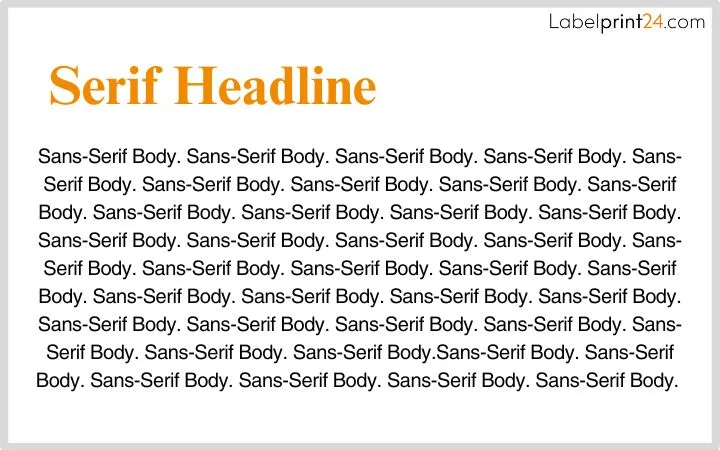
Trending Font Combinations
Combining different font styles can create a dynamic and engaging visual experience. Here are some trending font combinations for 2024:
- Serif Headline + Sans-Serif Body: This combination offers a balance of tradition and modernity. Use a bold serif font for headlines and a clean sans-serif font for body text.
- Script + Sans-Serif: Pairing a decorative script font with a simple sans-serif font creates a sophisticated and elegant look. This combination works well for luxury or feminine brands.
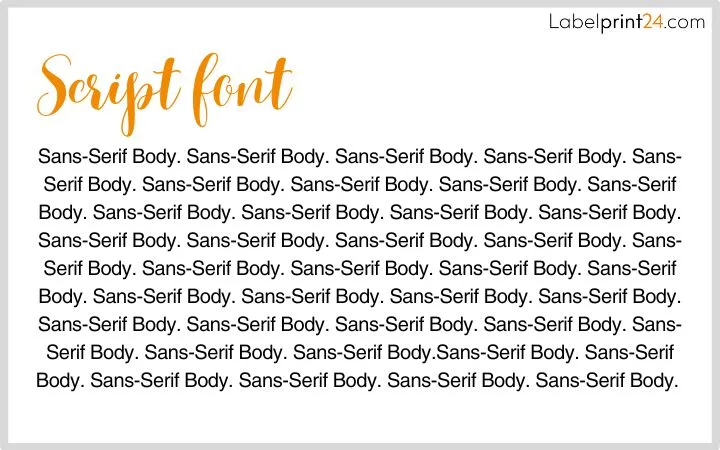
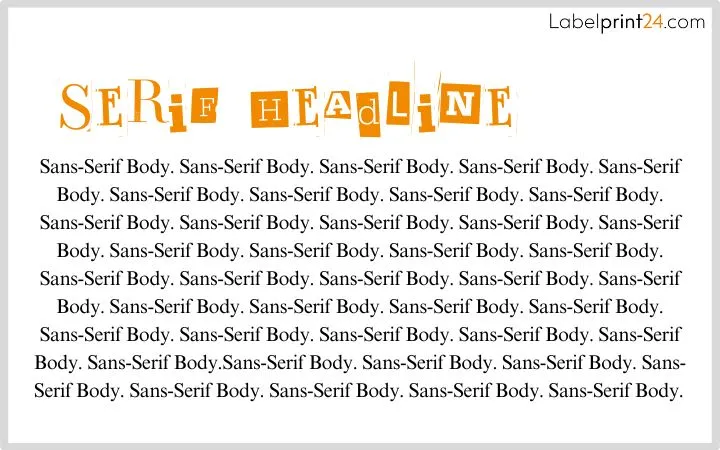
- Experimental + Serif: Combining an experimental font with a classic serif font creates an interesting contrast. This combination is perfect for brands that want to make a bold statement while maintaining a sense of refinement.
Case Study: Fonts in Action
Consider a brand that revitalised their packaging by adopting "Neue Montreal", a versatile sans-serif font inspired by Montreal's design scene. This integration not only refreshed the brand's visual identity but also amplified its appeal on social media platforms, leading to heightened consumer engagement.
Another example is a luxury skincare brand that used a combination of a decorative script font and a clean sans-serif font on their labels. This combination conveyed a sense of elegance and sophistication, while also ensuring readability and clarity of information.
Conclusion
Staying abreast of font trends is imperative for sustaining and boosting brand identity and appeal. We encourage brands to delve into and experiment with emerging fonts, utilising their distinctive characteristics to craft unforgettable packaging and label designs.